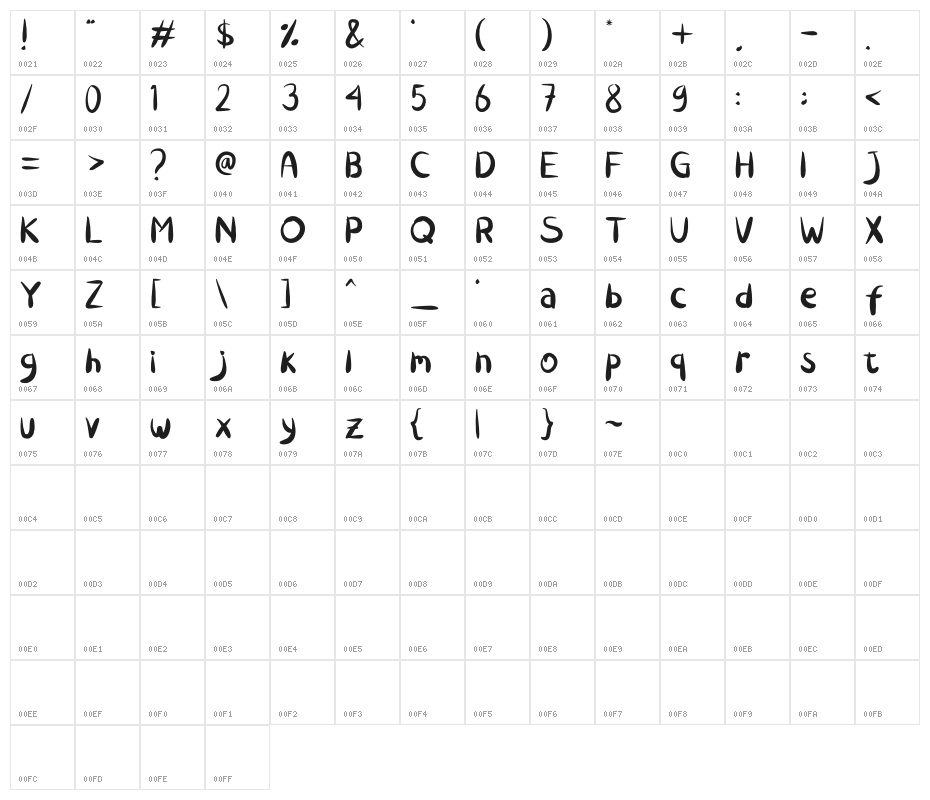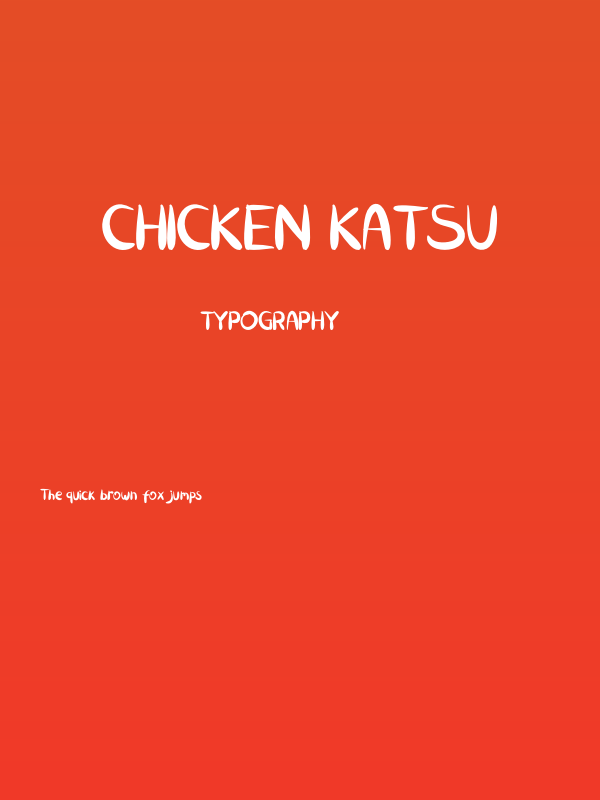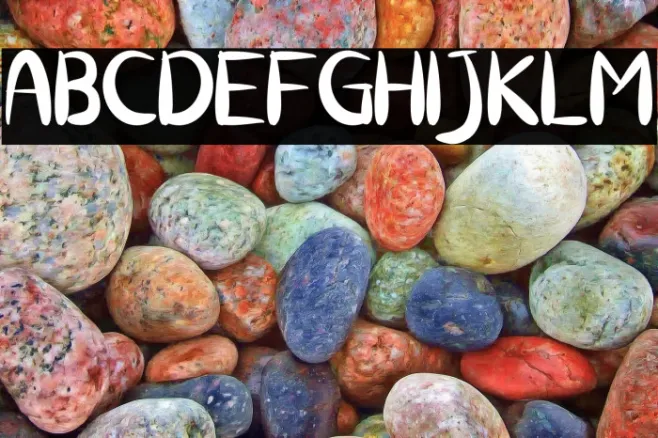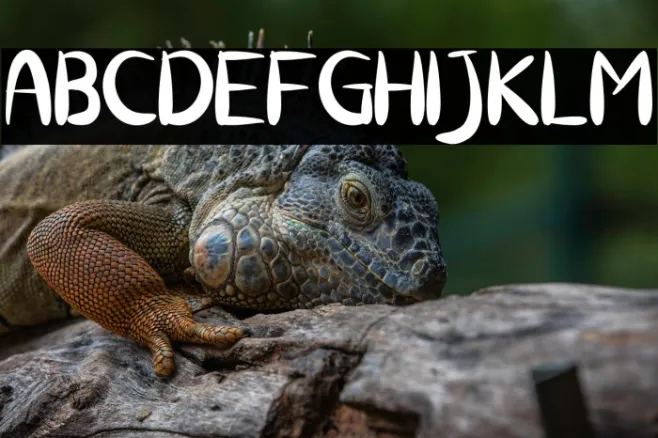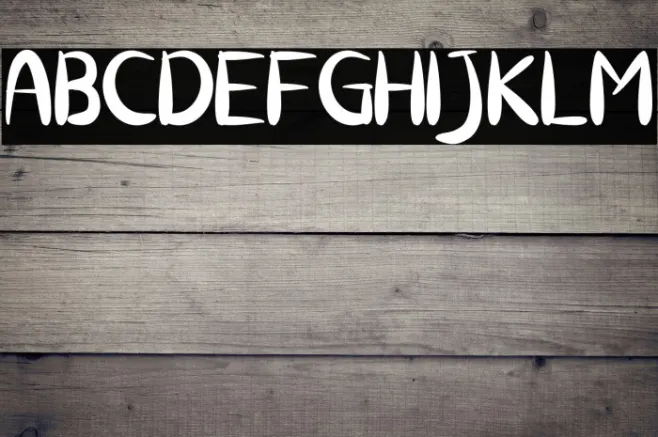
Chicken Katsu Font
Chicken Katsu Description
This playful and energetic font features bold, rounded characters with a hand-drawn appearance. The letters are slightly irregular, adding a whimsical and casual feel. The strokes are thick and consistent, providing a strong visual impact. The font includes both uppercase and lowercase letters, numbers, and a variety of special characters. Its informal style makes it suitable for creative and fun projects, where a relaxed and approachable tone is desired.
| Proposed Projects | Ideal for children's books, playful branding, casual invitations, and creative posters. |